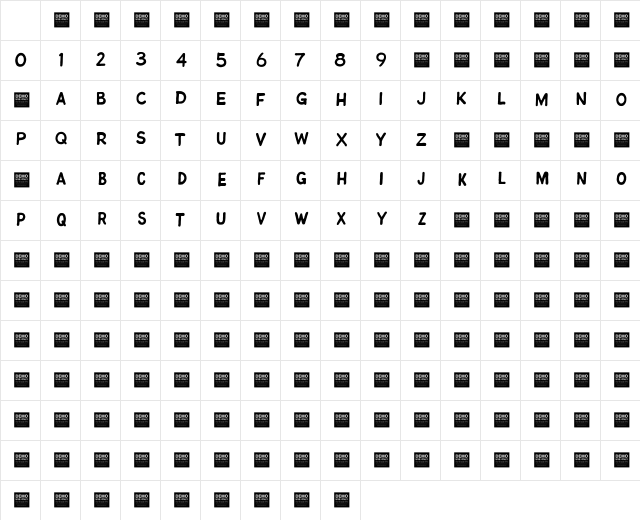
Complete Jitter Bug - Demo Regular glyph index. Displaying only characters natively supported by Jitter Bug - Demo Regular font.
Jitter Bug - Demo is a composed and adaptable typeface that performs quietly and consistently across a wide range of design contexts.
Pro Tip: Use Jitter Bug - Demo in both headline and body roles to test its range before committing to a single application.